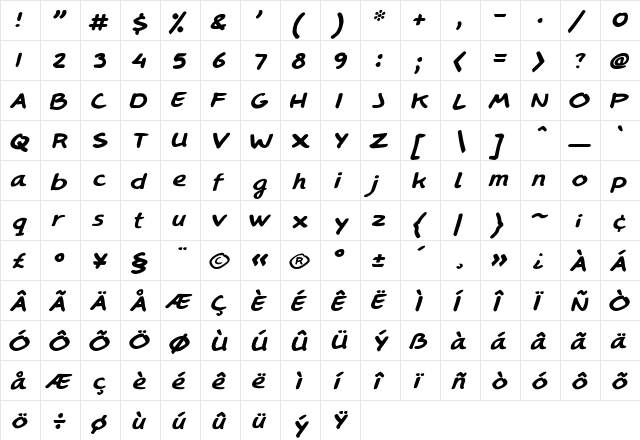
Edding3000 Italic
Design Context for Edding3000 Typeface
Edding3000 is a composed and adaptable typeface that performs quietly and consistently across a wide range of design contexts. Its italic angle brings a sense of urgency and motion to the letterforms.